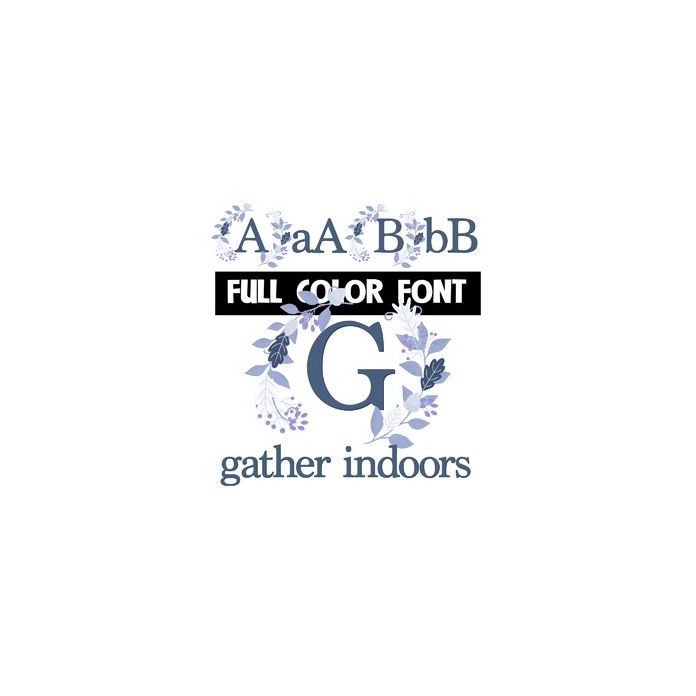
This full-color font features a frame of freezing leaves and berries. There is an alt uppercase you can access through your system's or Silhouette's glyph map.